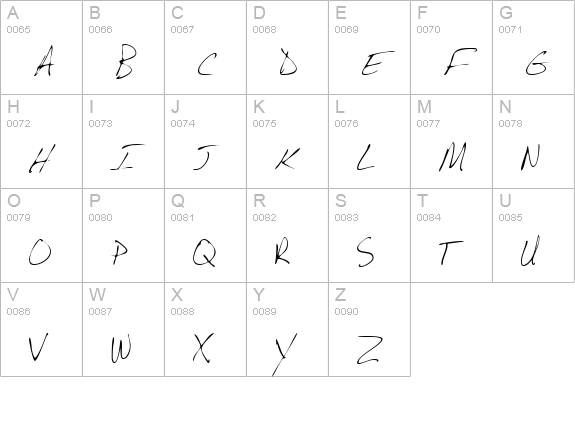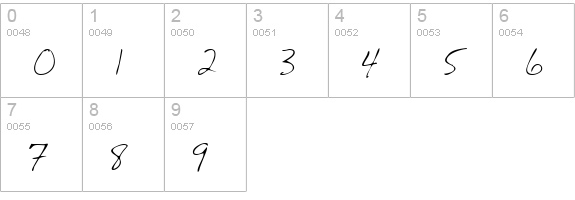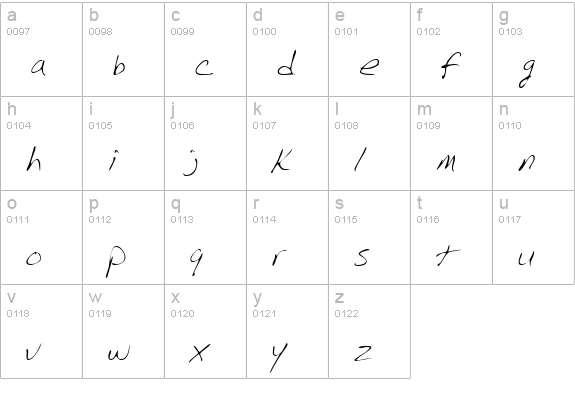
BarrysHand Regular Font Details
BarrysHand Regular is the standard, neutral variant in the BarrysHand typeface family \xE2\x80\x94 well suited to general body text, paragraphs, and standard typographic work.
BarrysHand Regular font is a charming and whimsical typeface that exudes a friendly and approachable vibe. With its handwritten style and quirky details, this font is perfect for adding a personal touch to your projects. Whether you're designing greeting cards, invitations, or social media graphics, BarrysHand Regular will bring a unique flair to your work. Best of all, BarrysHand Regular font is completely free to download at FontsMarket.com. Simply head over to the website and add this delightful font to your collection without spending a dime. Don't miss out on the opportunity to enhance your designs with the playful charm of BarrysHand Regular font - download it now and let your creativity shine!